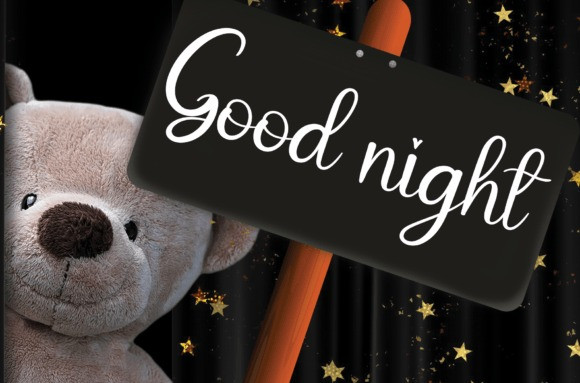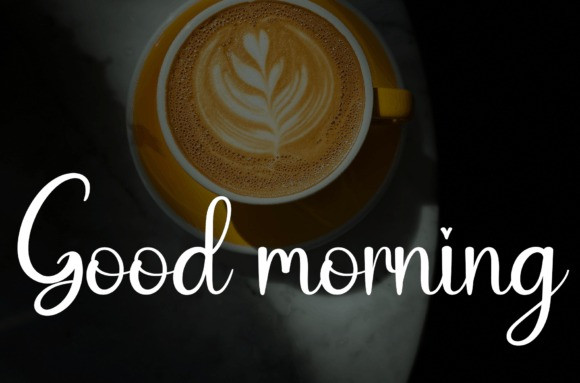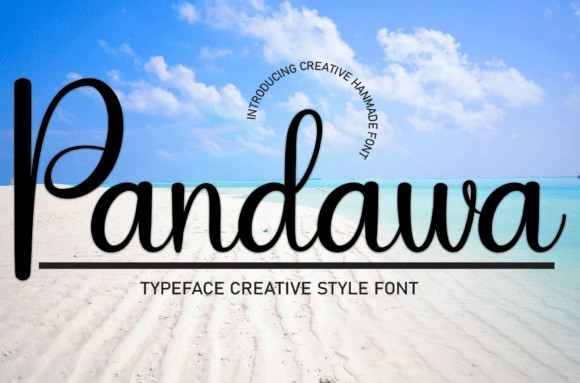
Pandawa Script Font
Pandawa Script Font is a sweet and friendly handwritten font. Creative and cute, this font is ideal for writing wedding invitations, cards, or any other design that might need a fun touch!